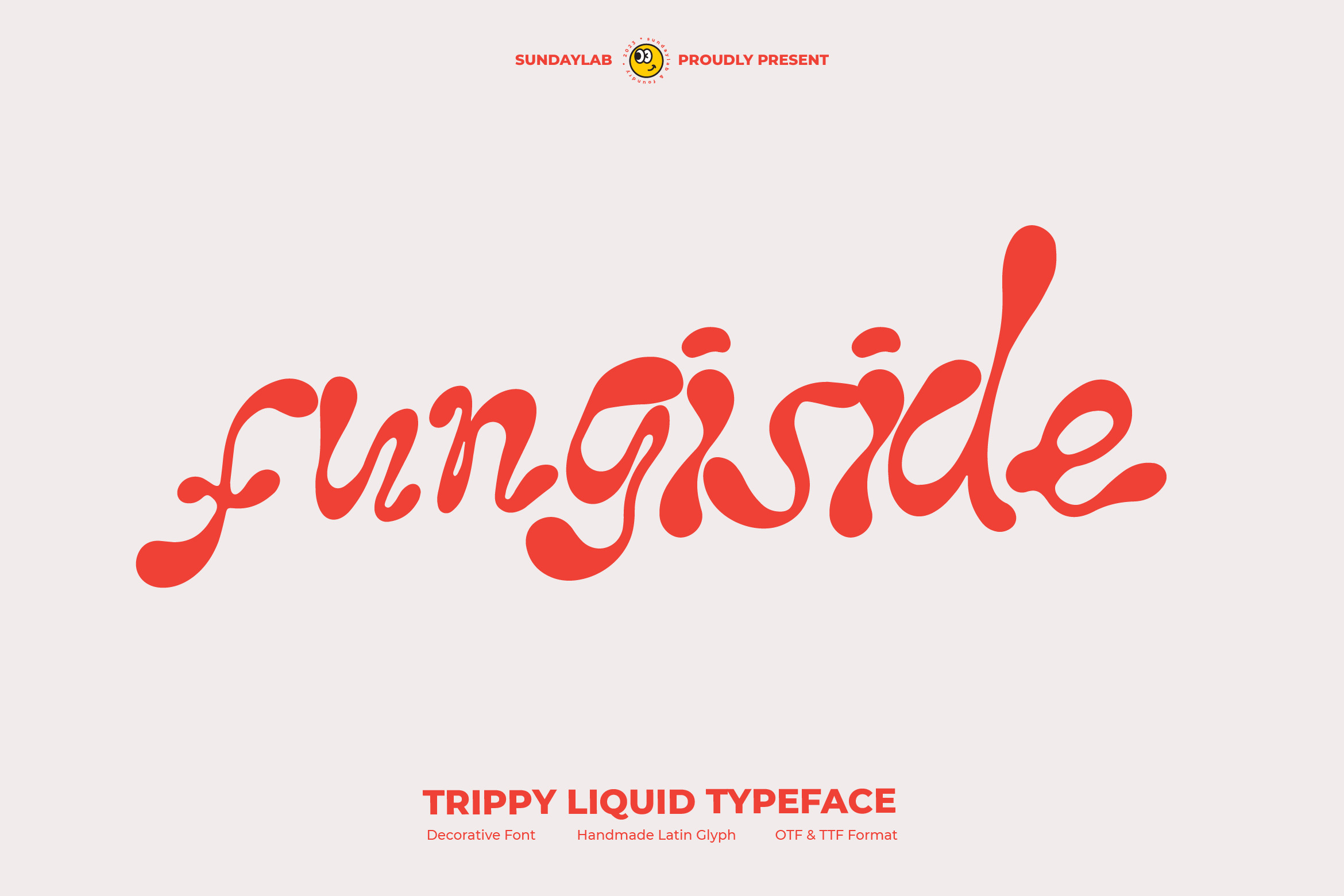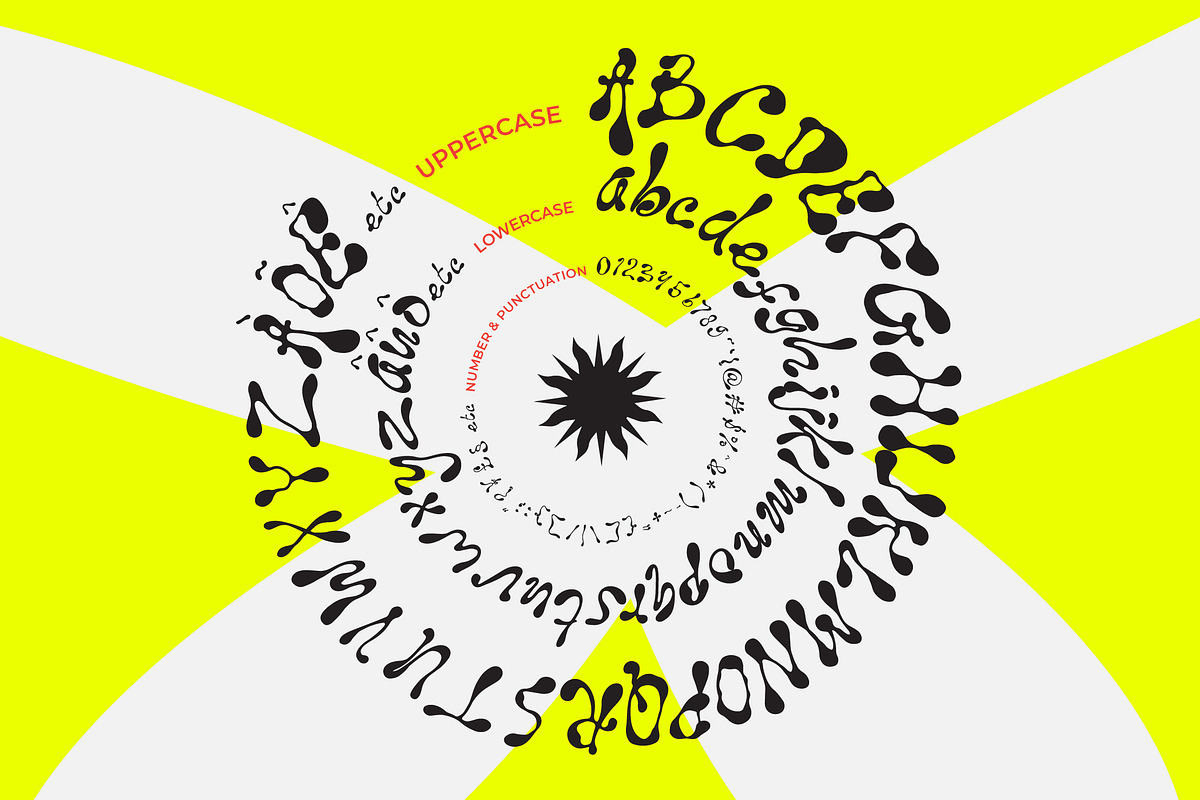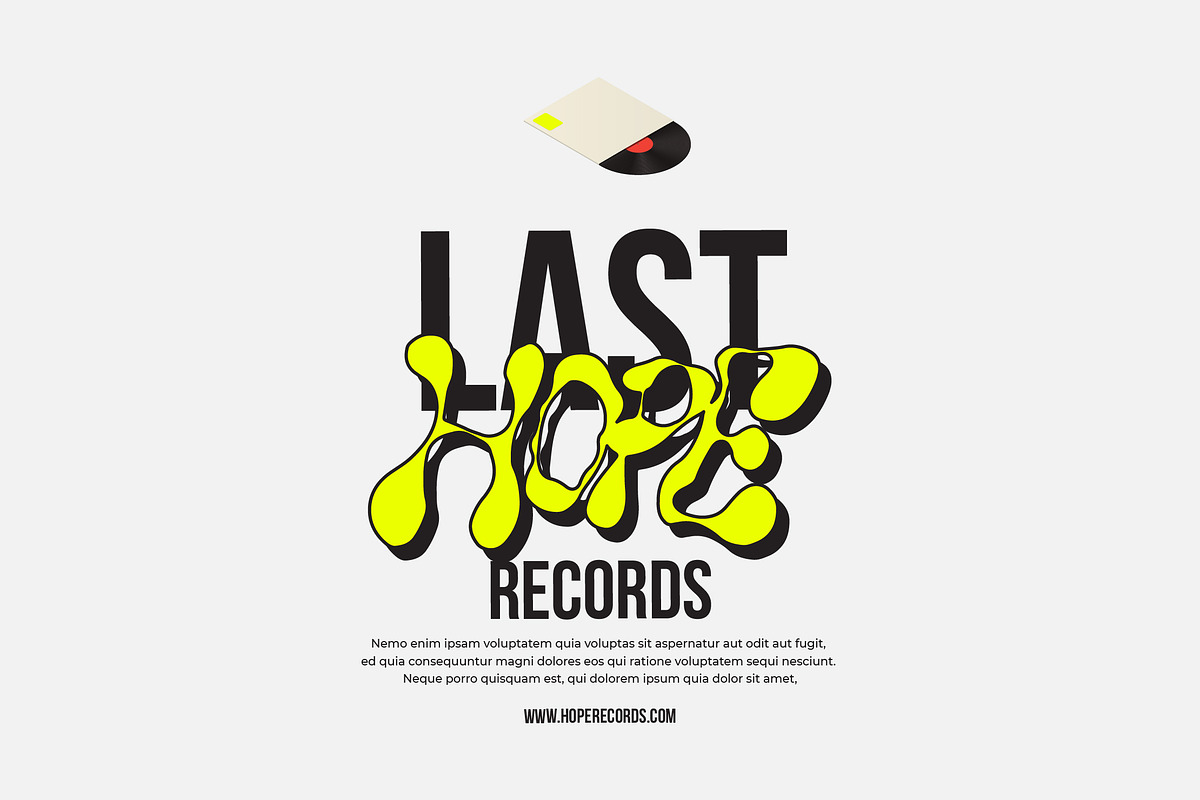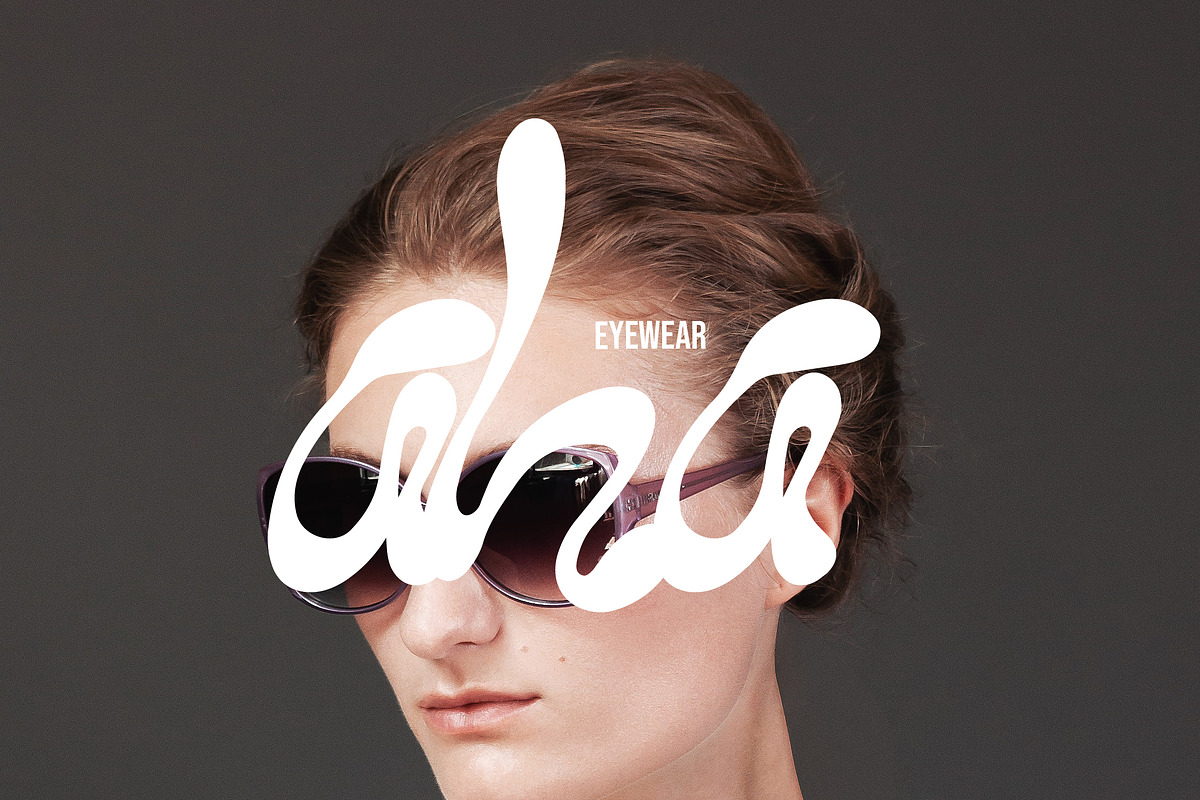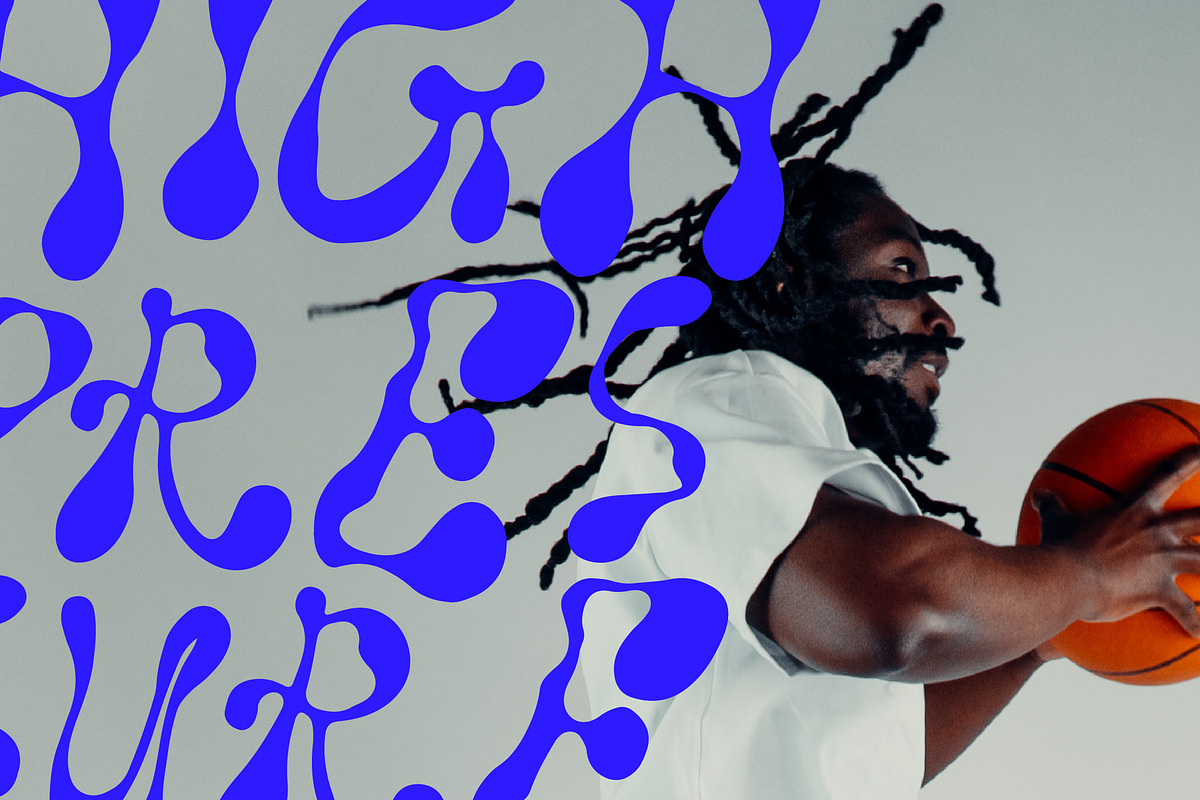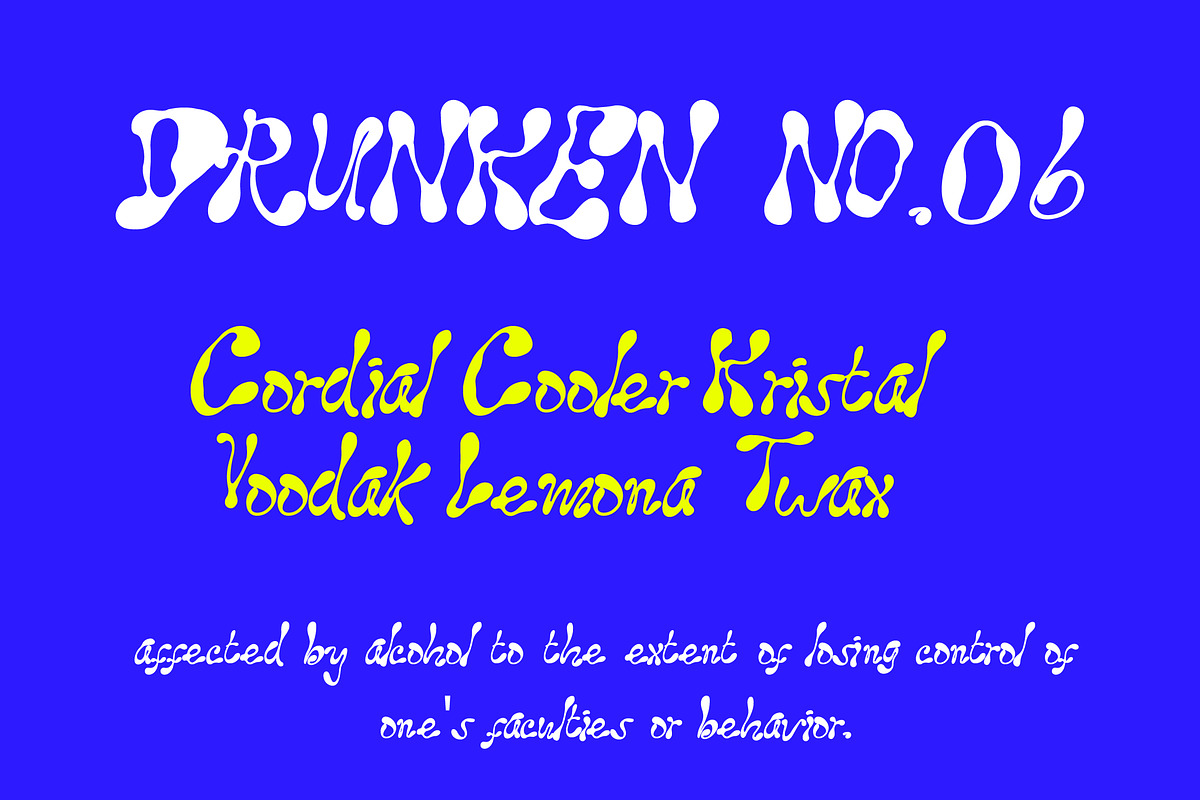
Fungiside Typeface
Introducing
Fungiside Typeface
Fungiside Typeface is a decorative fluid font that can help display messages in the designs you create. With its unique character, it is suitable for you to use on stickers, flyers, website, social media, vinyl, CDs, and many other media.